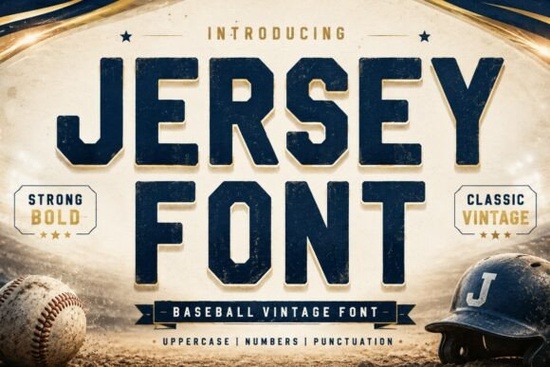
If you're working on a sports-themed design whether it's for a local baseball team, retro gym apparel, or vintage-inspired event posters you need a typeface that captures the energy and tradition of American athletics. That’s where Jersey Font comes in. This bold, geometric display font draws direct inspiration from classic baseball jerseys, stadium signage, and varsity lettering, giving your projects an instantly recognizable athletic look without sacrificing clarity.
Unlike overly stylized fonts that can be hard to read at small sizes or on merchandise, Jersey Font maintains strong legibility thanks to its clean lines, sharp corners, and consistent weight. It’s built with uppercase letters, numbers, and punctuation everything you need for team rosters, scoreboards, logo lockups, or branded packaging.
What kinds of projects work best with Jersey Font?
Jersey Font shines in any context where you want to evoke nostalgia, strength, or team spirit. Here are just a few practical uses:
- Sports team branding – Create logos for youth leagues, school squads, or amateur clubs.
- Apparel design – Print player names and numbers on tees, hoodies, or custom jerseys.
- Event promotion – Design posters for tournaments, pep rallies, or championship games.
- Retail packaging – Add a sporty edge to labels for fitness supplements, snack bars, or drink bottles.
- Esports and gaming – Use it for team banners, stream overlays, or merch with a competitive vibe.
Because it’s a display font, it’s best used for headlines, short phrases, or focal text not body copy. But within those limits, it’s incredibly versatile across baseball, football, basketball, hockey, and even non-traditional sports like esports.
How does it compare to other varsity-style fonts?
Many slab-serif sports fonts lean heavily into distress effects or exaggerated serifs, which can limit their use on clean, modern designs. Jersey Font strikes a balance: it has that authentic vintage sports character but with a polished, professional finish. If you’re looking for alternatives with different moods, consider exploring Summer Varsity for a lighter, more casual feel, or Varsity Distressed if you specifically need grunge textures. For something with academic weight, Campus Font offers a structured, collegiate tone that pairs well with Jersey Font in layered designs.
One advantage of Jersey Font is its straightforward geometry it scales cleanly from large banners down to embroidered patches. You won’t lose detail or readability when resizing, which is crucial for print-on-demand sellers who need consistency across mugs, shirts, and tote bags.
Tips for using Jersey Font effectively
To get the most out of this typeface, keep these practical guidelines in mind:
- Pair it wisely. Since it’s all caps and bold, combine it with a simple sans-serif (like Helvetica or Montserrat) for supporting text. Avoid pairing it with other heavy display fonts.
- Use ample spacing. Tight kerning can make the sharp corners feel cluttered. Slight letter-spacing often improves legibility, especially at smaller sizes.
- Stick to high-contrast colors. White on navy, black on red, or gold on dark green classic sports color combos enhance its retro appeal.
- Avoid overuse. One or two words in Jersey Font often carry more impact than full paragraphs. Let it anchor your design, not dominate it.
For crafters and small business owners, this font also works beautifully in vinyl cutting, heat transfer applications, and screen printing. Its solid shapes hold up well under production constraints, reducing the risk of broken lines or misprints.
Ready to try it?
If your next project calls for that unmistakable blend of grit, pride, and Americana found in old-school athletics, Jersey Font delivers without unnecessary complexity. It’s available through Creative Fabrica with a commercial-use license, so you can confidently use it for client work or your own shop.
Before you download, ask yourself:
- Is my design meant to convey strength, teamwork, or nostalgia?
- Will the text be used in headlines, logos, or short identifiers?
- Do I need a font that prints clearly on fabric, paper, or digital screens?
If you answered yes to most of these, Jersey Font is likely a strong fit. And if you’re building a sports-themed bundle, don’t forget to check out related slab-serif options that complement its style while offering subtle variations for layered branding.